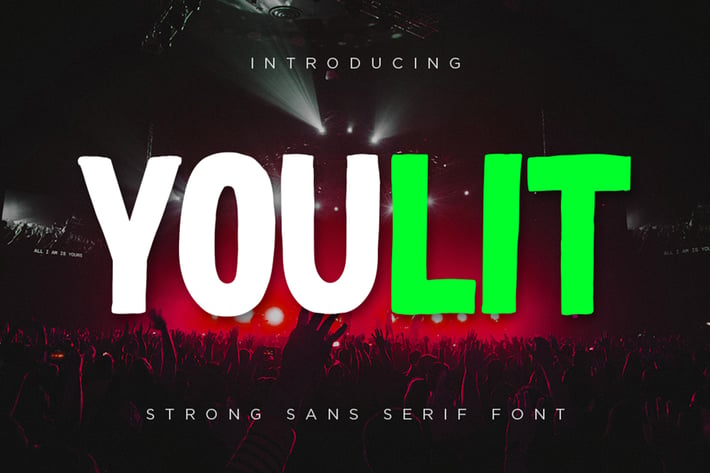
Youlit - Bold Strong Sans Serif Font
Youlit is a strong display font carefully handcrafted to become a true favorite. Its casual charm makes it appear wonderfully down-to-earth, readable and, ultimately, incredibly versatile. Youlit will look outstanding in any context, whether itβs being used on busy backgrounds or as a standalone headline!